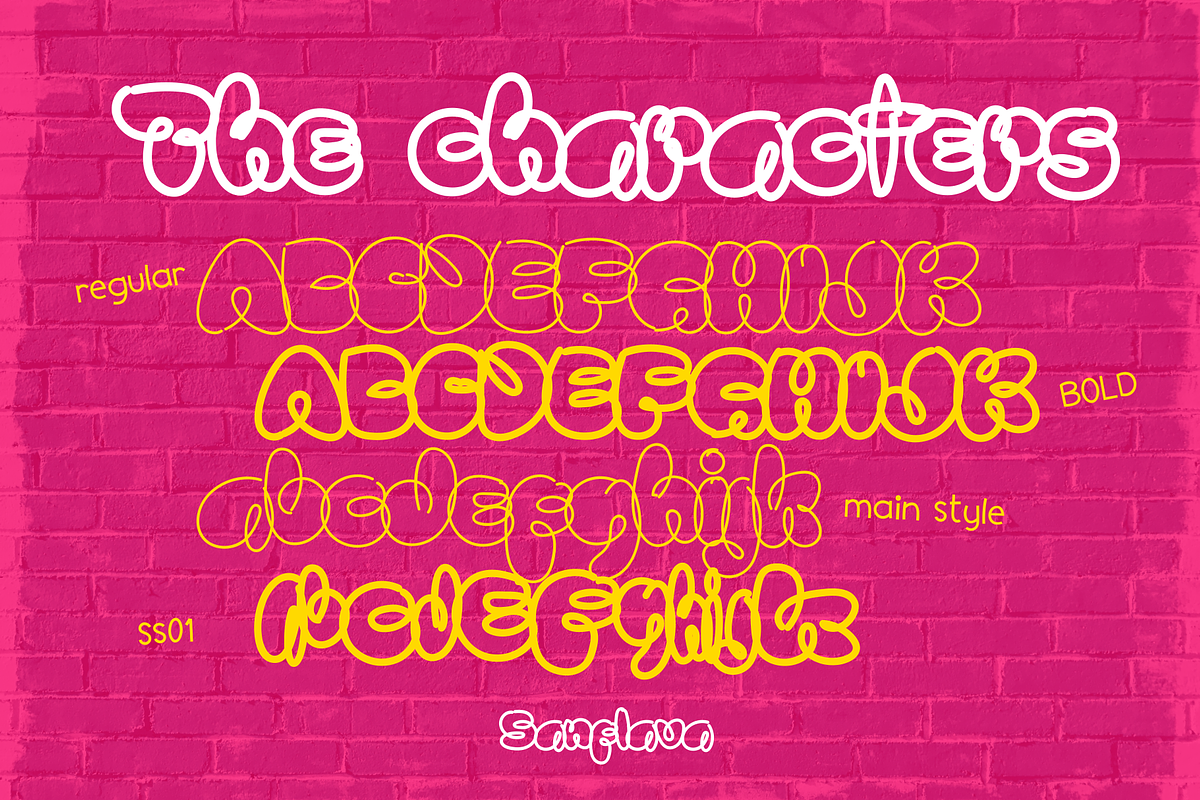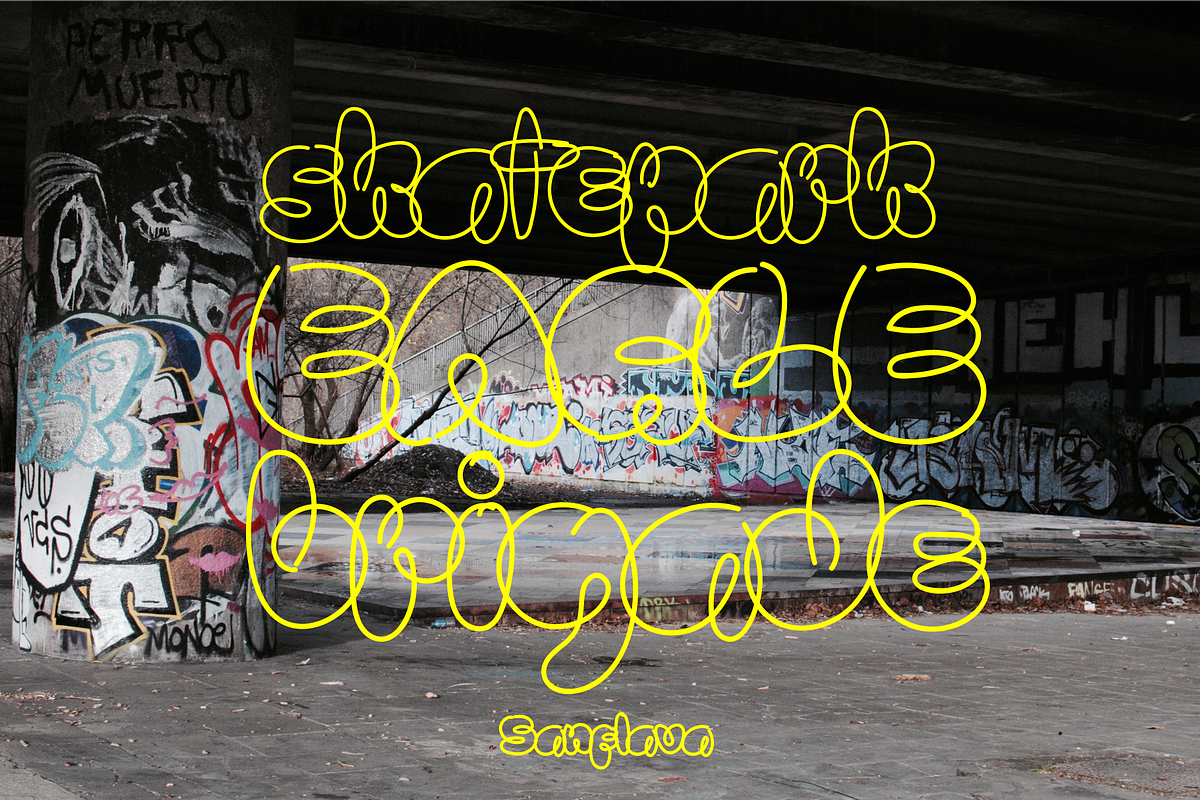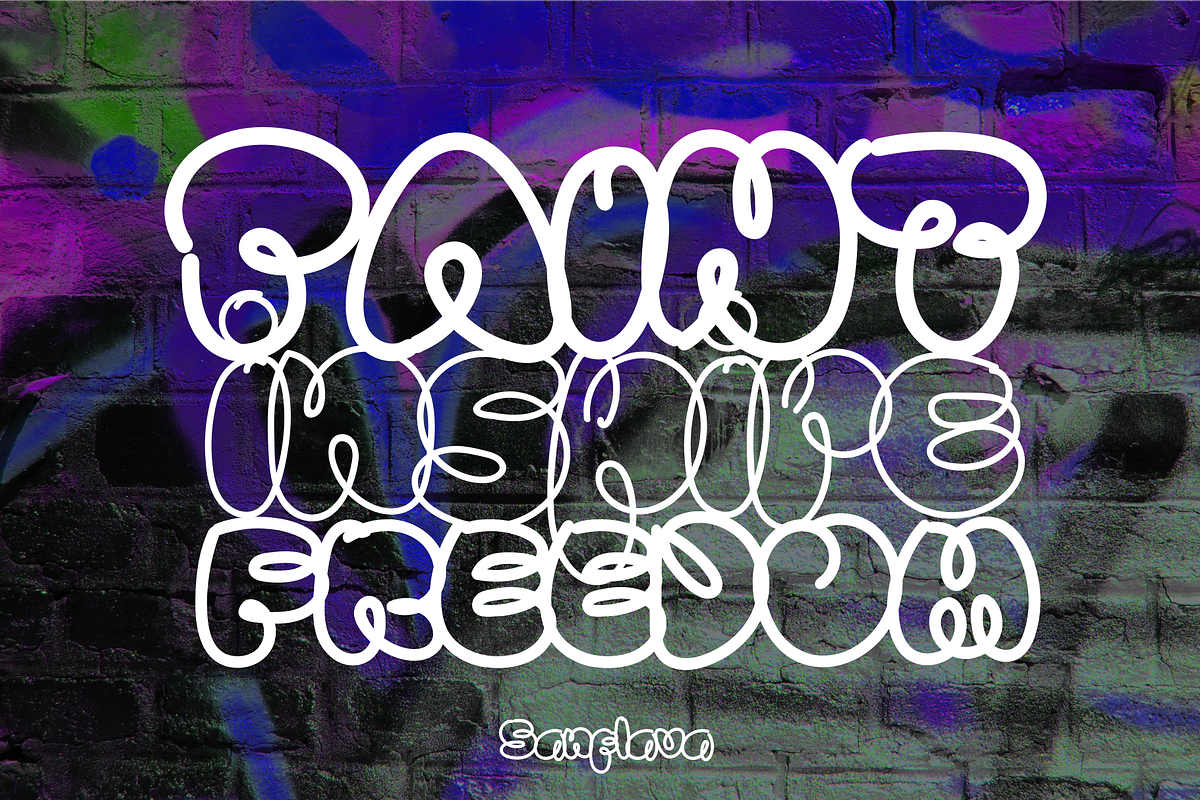
Sanflava Font
Sanflava is a handwritten font graffiti version that inspired by Sunflower-into the spider verse writing. with regular and bold, you can improvise to get the right feel of the word written. The lowercase has an alternate, so you can play with it freely.